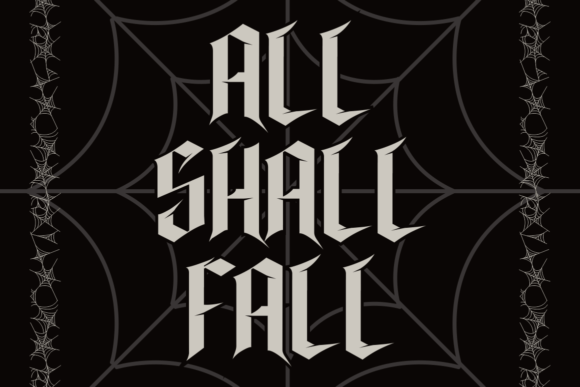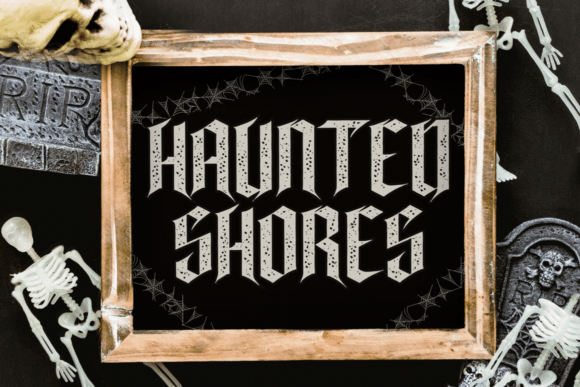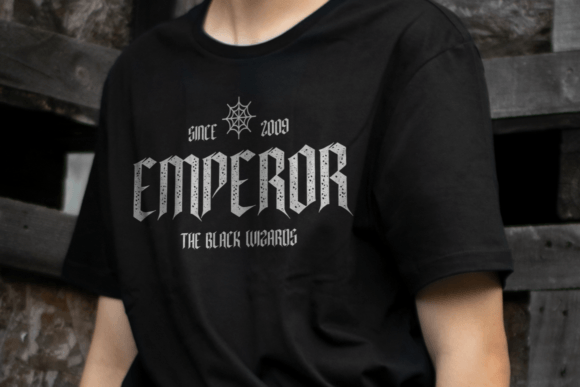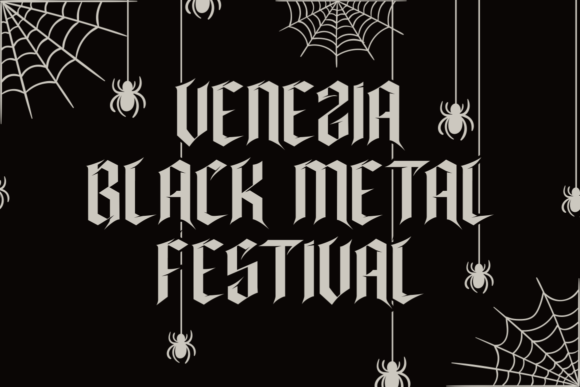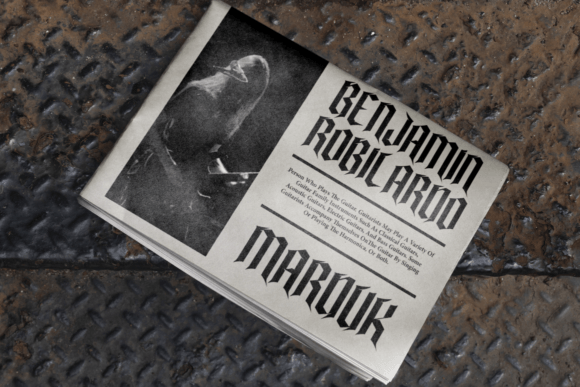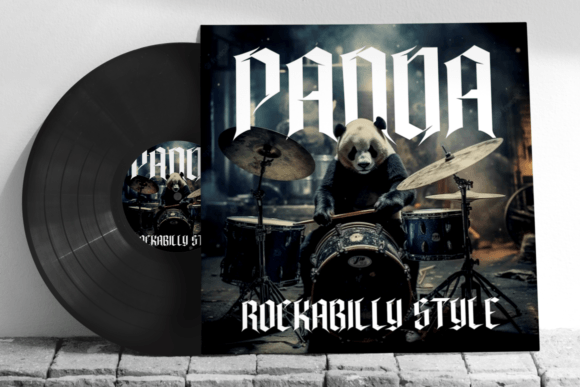
Introduction to Lamphor Font
Lamphor – Black Letter Font exudes an eerie and intimidating aura with its sharp and pointed letterforms.
This font is perfect for gothic or horror-themed designs, making it an ideal choice for projects seeking a menacing vibe It offers three distinct versions: regular, display, and texture, allowing for versatile use in various design contexts.